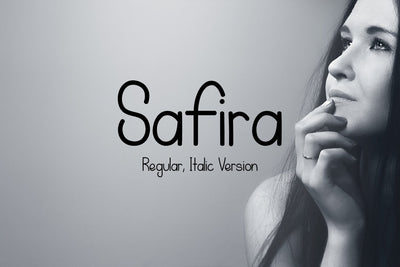
Safira
Safira is a handcrafted typeface, very stylish and fun character. It’s very great for your holiday or travel theme design. It can be used for various purposes, such as headings, signature’s, logos, wedding invitations, t-shirts, letterheads, signage’s, labels, news, posters, badges, and much more!